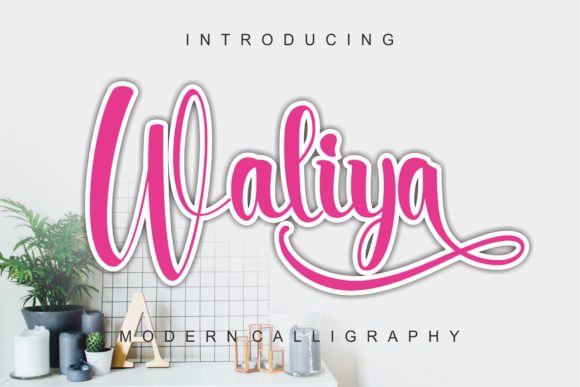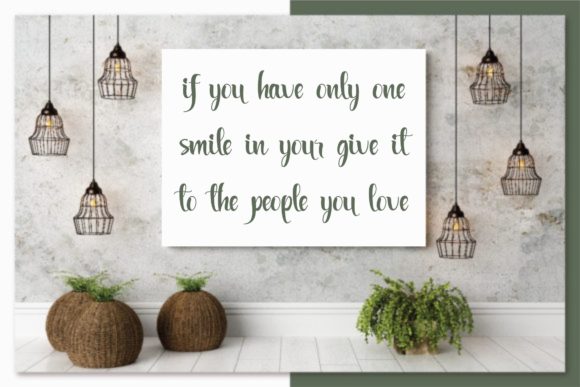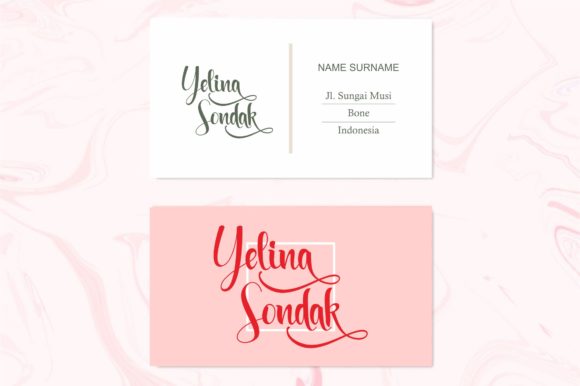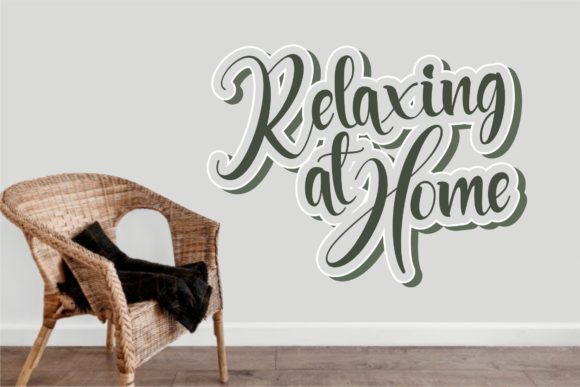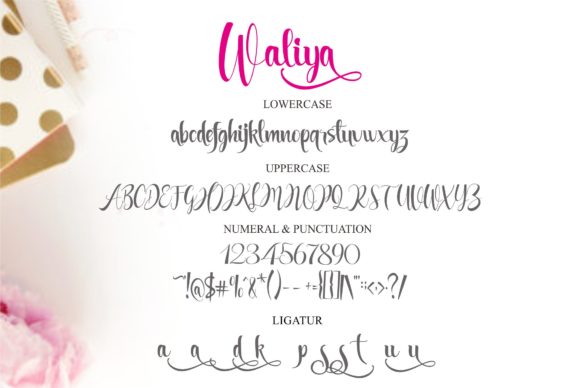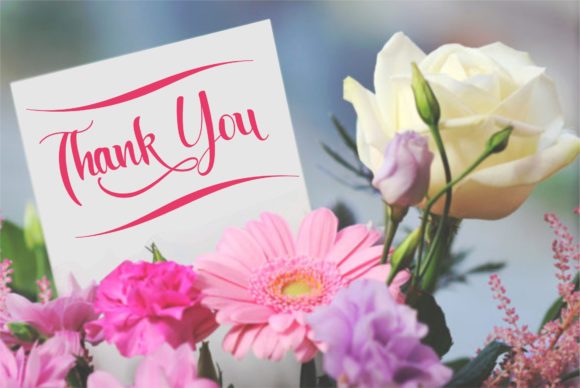
Waliya Font
About Waliya Font
Waliya sounds like a beautiful and versatile handwritten font that combines elegance and timelessness. Let’s explore some creative ideas on how to use Waliya font to create stunning designs:
1. Wedding Invitations: Design romantic and sophisticated wedding invitations using Waliya font. Its flowing and elegant style will set the perfect tone for the special day.
2. Thank You Cards: Create heartfelt and personalized thank you cards with Waliya font, expressing gratitude with a touch of grace.
3. Branding: Use Waliya font in branding materials, such as logos, business cards, and website headers, to add a touch of elegance to your brand identity.
4. Quotes and Typography Art: Design stunning quote graphics and typography art using Waliya font, emphasizing the beauty of the written word.
5. Greeting Cards: Use Waliya font to design beautiful and charming greeting cards for various occasions, from birthdays to holidays.
6. Artistic Signatures: Create personalized and artistic signatures using Waliya font for a unique and elegant touch.
7. Editorial Designs: Apply Waliya font in editorial layouts for magazines and brochures, adding a sense of sophistication to the content.
8. Book Covers: Incorporate Waliya font into book cover designs, particularly for titles with a classic or poetic theme.
9. Social Media Graphics: Use Waliya font in social media graphics to add a touch of elegance and refinement to your posts and updates.
10. Personal Stationery: Create custom stationery using Waliya font, making your letters and notes truly special and sophisticated.
11. Inspirational Prints: Design motivational and inspirational prints with Waliya font, inspiring others with its elegant style.
12. Fashion and Beauty Brands: Use Waliya font in branding materials for fashion and beauty brands that aim to convey elegance and style.
13. Event Invitations: Design invitations for formal events, galas, or corporate gatherings with Waliya font for a touch of sophistication.
14. Art Exhibitions: Apply Waliya font in promotional materials and posters for art exhibitions and gallery shows.
15. Stylish Blog Headers: Use Waliya font for blog headers or featured images for blogs that emphasize style, fashion, or lifestyle.
16. Luxury Product Labels: Apply Waliya font on labels for luxury products, adding an element of refinement and exclusivity.
17. Jewelry and Accessories: Use Waliya font in promotional materials and packaging for high-end jewelry and accessories.
18. Fine Dining Menus: Apply Waliya font to create elegant and upscale menus for fine dining restaurants or special events.
19. Romantic Quotes and Love Letters: Use Waliya font to express romantic sentiments in love letters, cards, or social media posts.
20. Personalized Gifts: Create personalized gifts using Waliya font, adding a touch of elegance and thoughtfulness to each item.
In conclusion, Waliya is a stunning handwritten font that exudes elegance and charm. Its flowing and timeless style makes it a perfect choice for a wide range of design projects, from wedding invitations to branding and editorial designs. With Waliya font, you can infuse your creations with a touch of sophistication and create truly spectacular designs that stand the test of time.